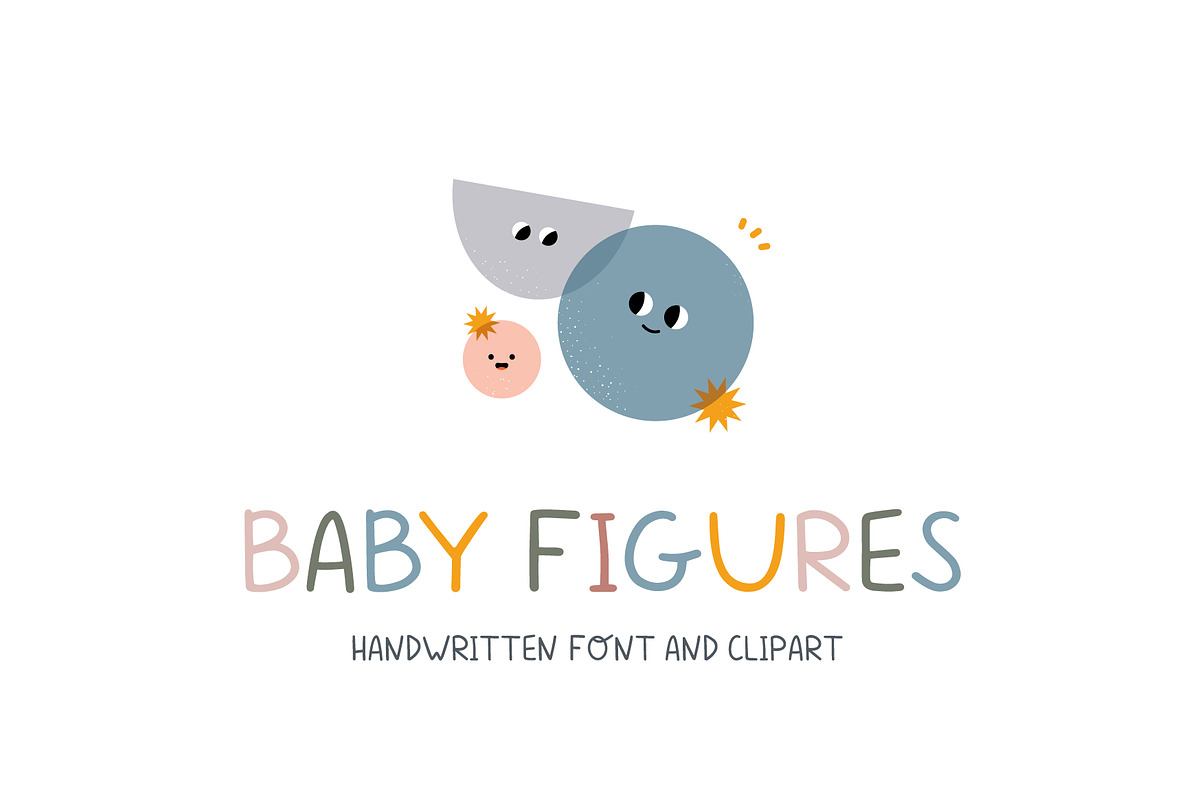
Baby Figures Handwritten Font Free Download is a soft, charming typeface that captures the innocence and joy of childhood through its gentle, hand-drawn letterforms. Perfect for baby shower invitations, nursery wall art, milestone cards, kids' clothing, and sweet branding projects, this font radiates warmth and love with every stroke.
With its playful curves and natural handwritten feel, Baby Figures is ideal for both digital and print use. Whether you're creating pastel-themed graphics or heartfelt keepsakes, this font brings a personal, loving touch to your work. You’re free to download and explore it for non-commercial use, but a proper license is required for any business or monetized application.
Add heart to your designs with Baby Figures Handwritten Font Free Download and let your creativity shine with a font that feels like a hug in type. It’s a perfect choice for anyone designing with care, joy, and a touch of childhood magic.